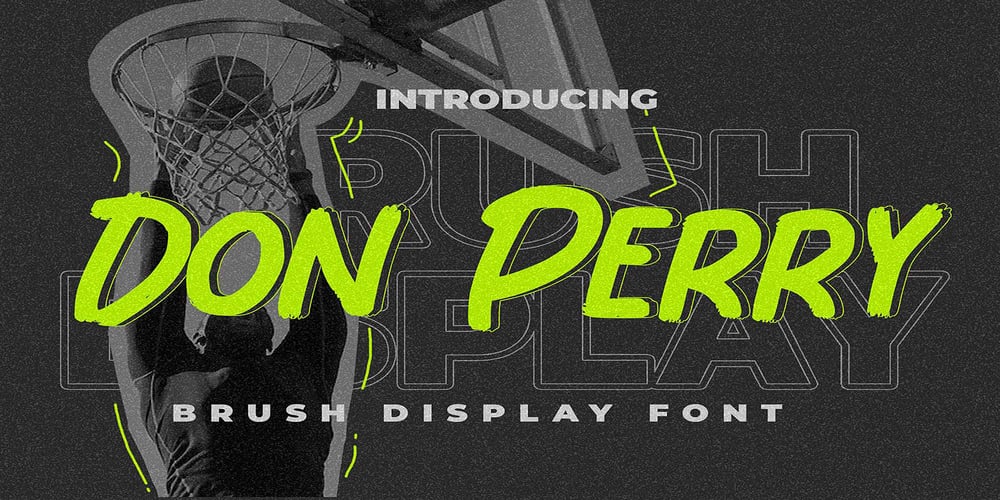
Don Perry Font Family was designed by Abdul Malik Wisnu, Anang Fibriyanto and published by Gassstype. Don Perry contains 1 styles and family package options. Hello Everyone, introduce our new product Font Don Perry This Is Brush Display Font.This is a Textured Natural Style and classy style with a clear style and dramatic movement.That is has charming, authentic and relaxed characteristic more natural look to your text.